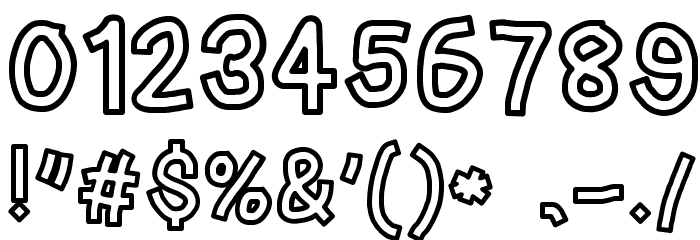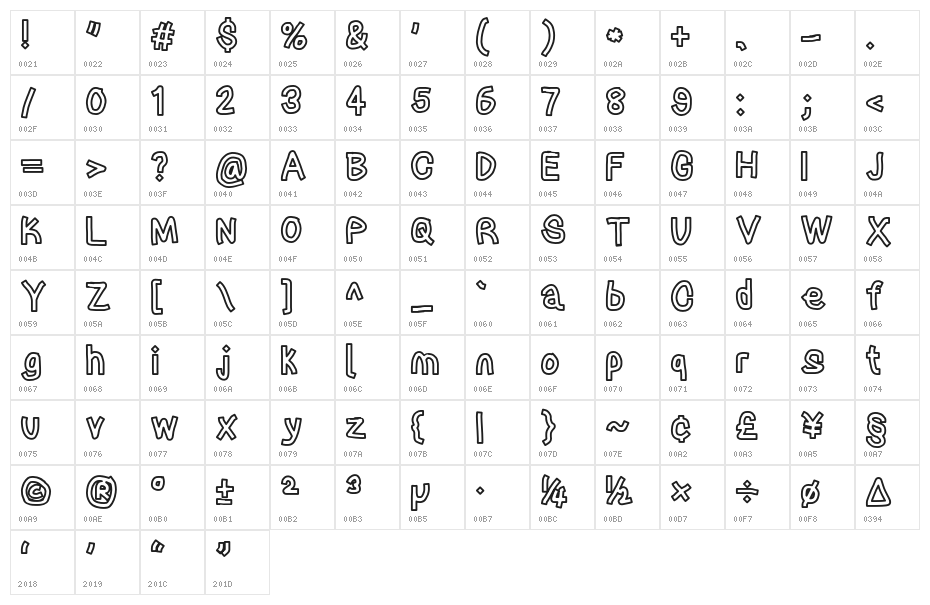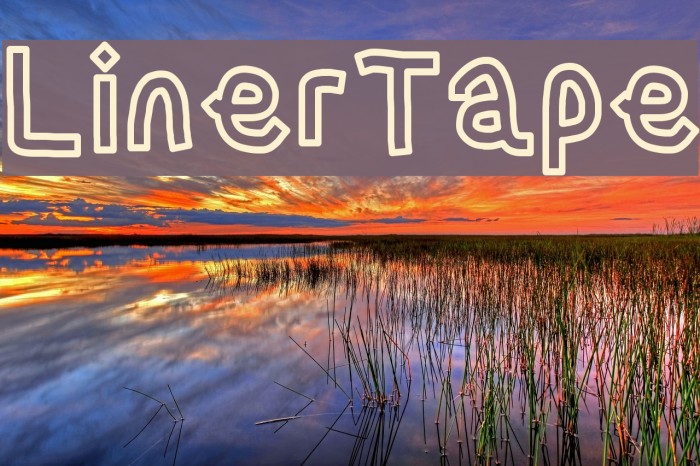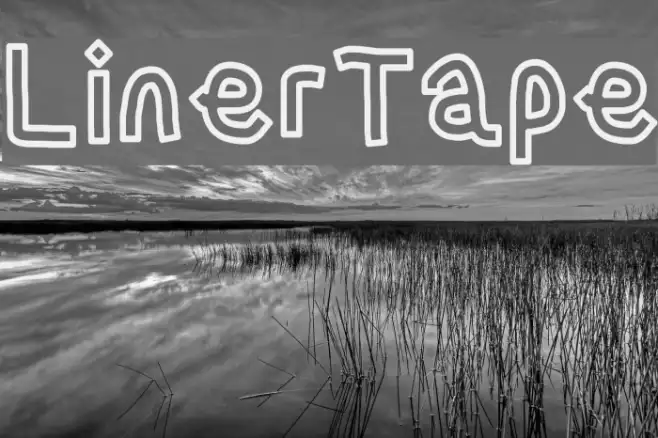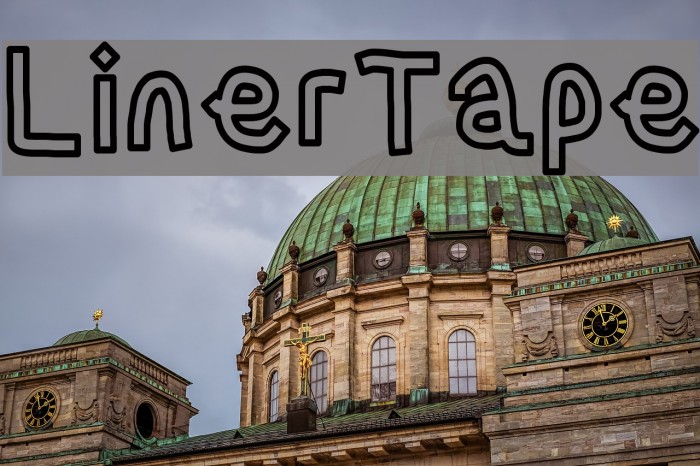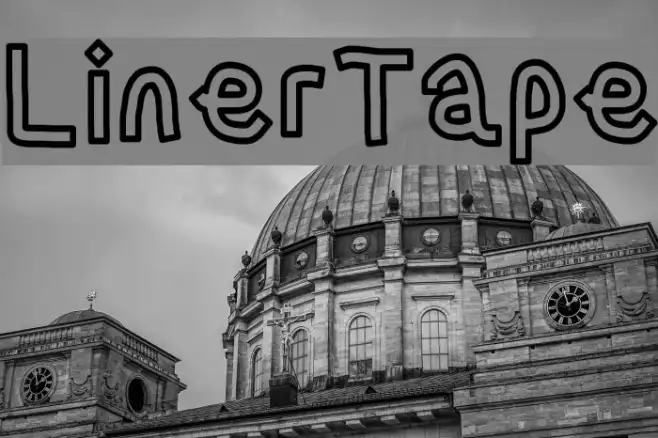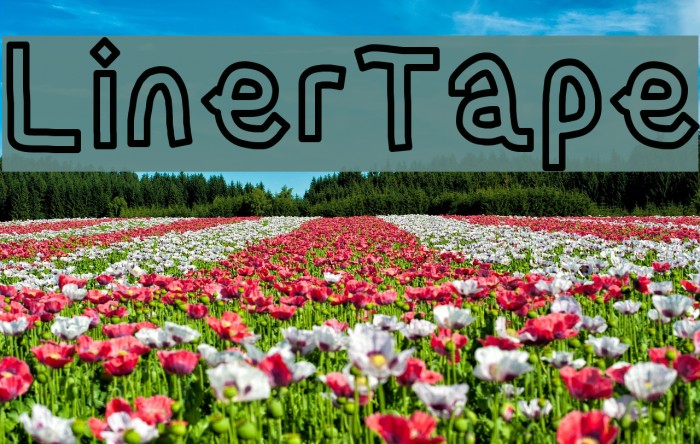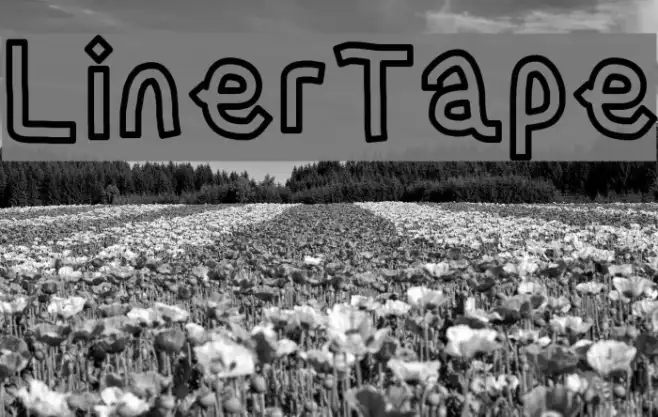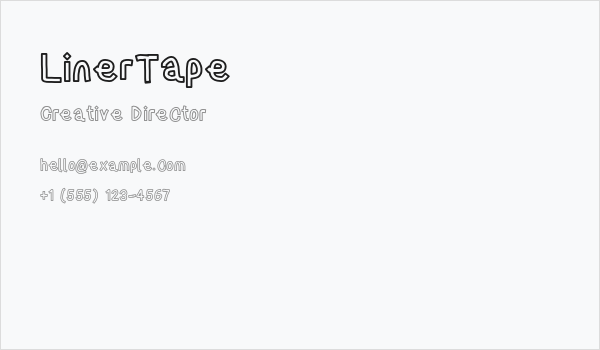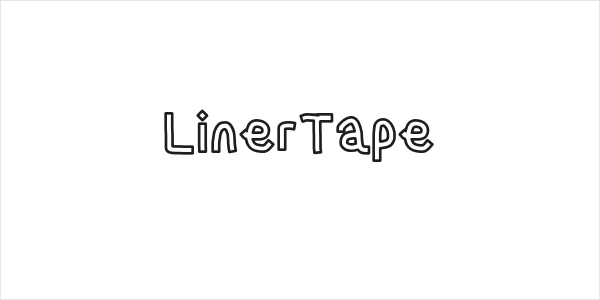
LinerTape Font
LinerTape Description
This font features a playful, hand-drawn style with bold, outlined characters. Each letter and number is crafted with a consistent thickness, giving it a cartoon-like appearance. The uppercase and lowercase letters maintain a uniform height, while the numbers are slightly larger, enhancing readability. The special characters are designed to match the whimsical style, making them suitable for creative projects. The overall look is casual and fun, perfect for designs that require a touch of personality and flair.
| Proposed Projects | Ideal for children's books, comic strips, playful branding, and creative posters. |